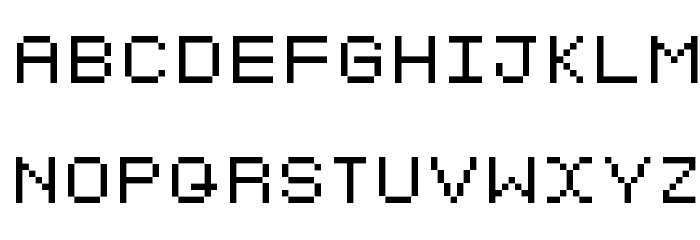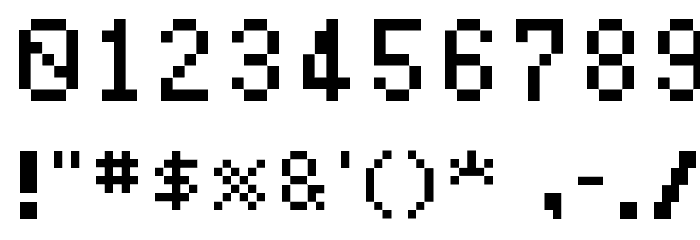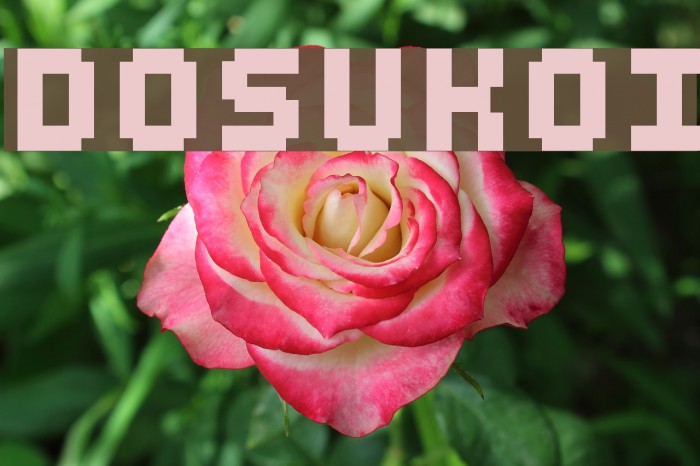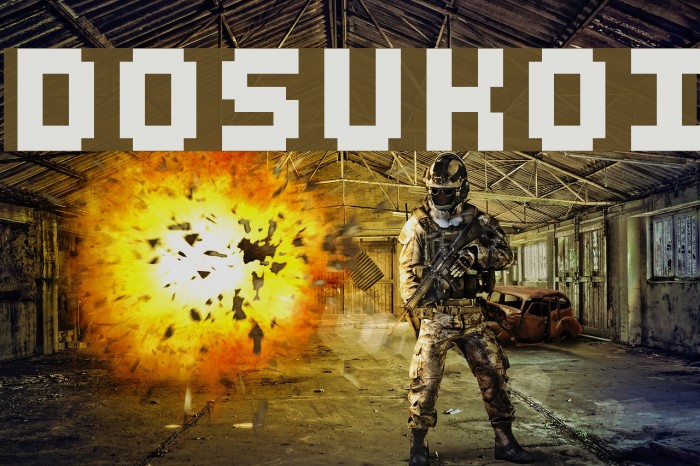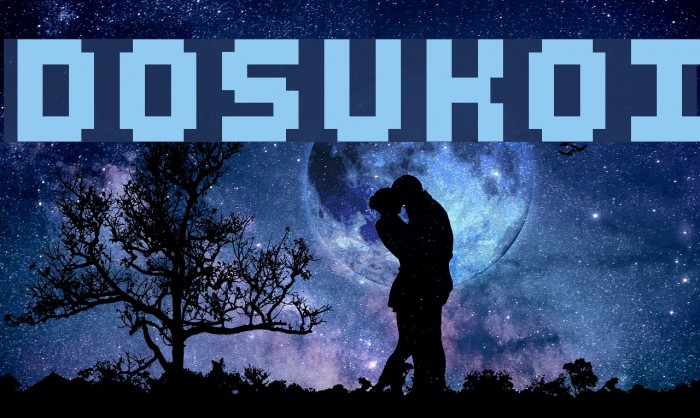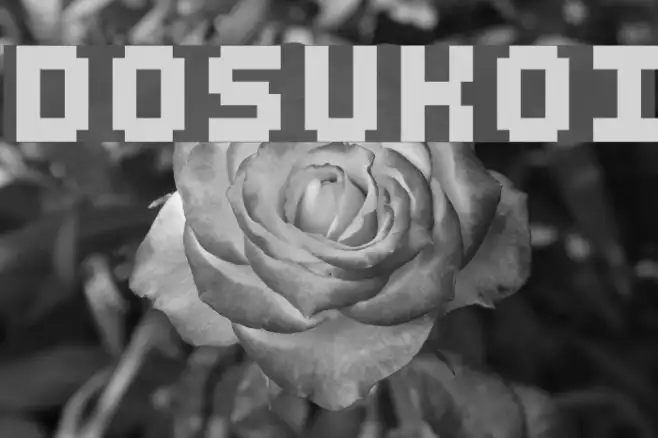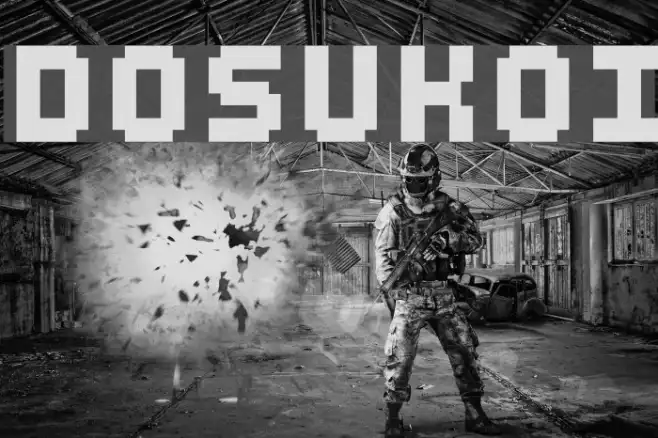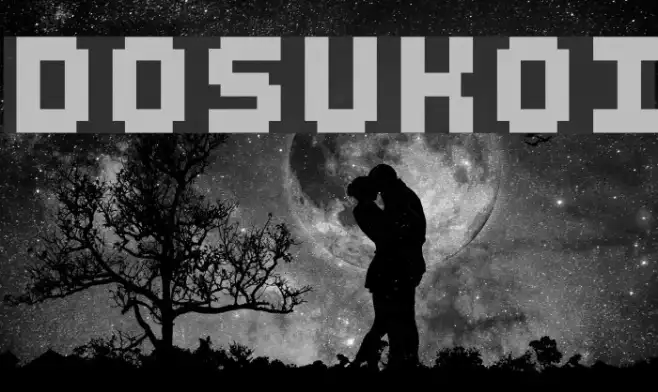
DOSUKOI Font
This font features a bold, pixelated style reminiscent of early digital and arcade game typography. It has a blocky, geometric appearance with uniform stroke widths, creating a strong, impactful presence. The characters are monospaced, ensuring equal width for each letter and number, which enhances its digital aesthetic. The uppercase and lowercase letters maintain a consistent design, with sharp angles and straight lines, contributing to its retro, tech-inspired look. The numerals and special characters follow the same pixelated pattern, ensuring a cohesive visual style across all elements.
- Proposed Projects: Ideal for video game design, tech-themed posters, retro digital displays, and any project seeking a nostalgic, digital look.
- Overall Style: Retro, Digital
- Use Case: Logos, Headlines, Digital displays